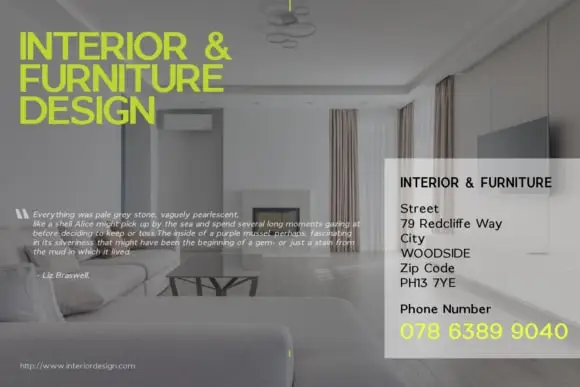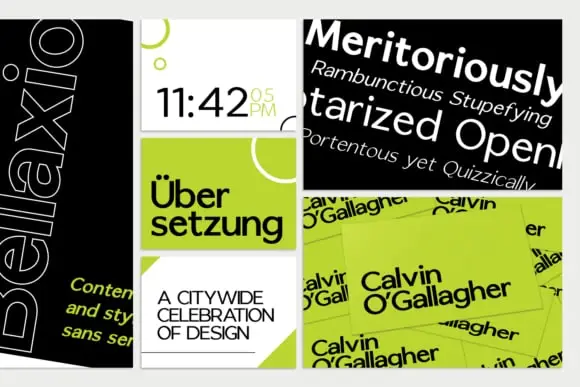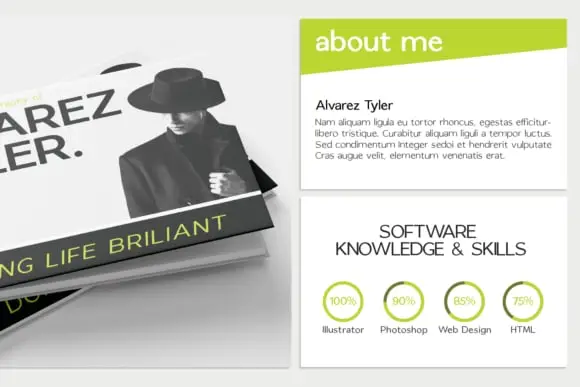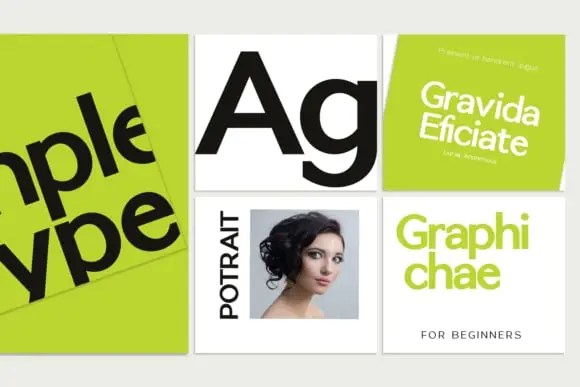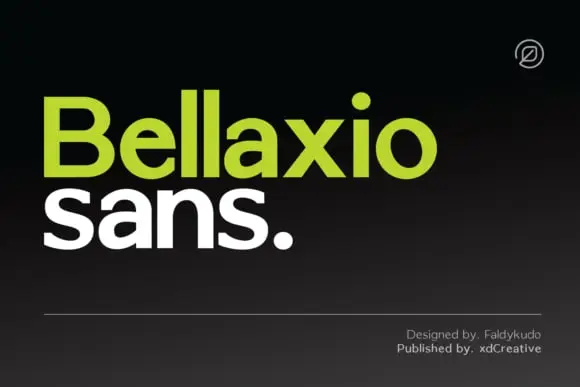
Xdcreative-Bellaxio Sans Font
The Xdcreative-Bellaxio Sans Font is a modern sans-serif typeface designed for versatility and clarity. With its clean lines and contemporary style, this font is perfect for a variety of applications, including branding, logos, web design, print materials, and user interfaces.
• Multiple weights for flexibility in design
• Stylish and readable letterforms
Utilize this font for creating eye-catching headlines, body text, and digital interfaces. Its versatility makes it suitable for both print and online projects.